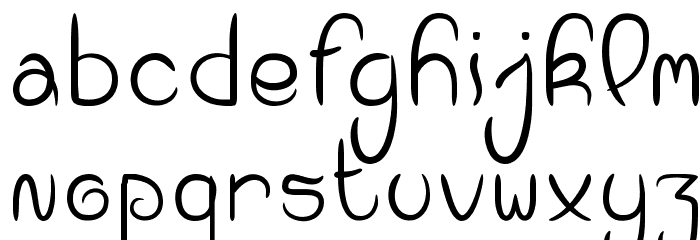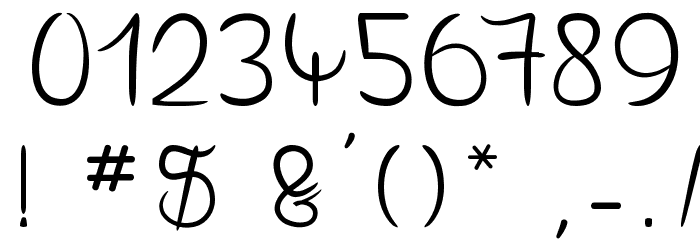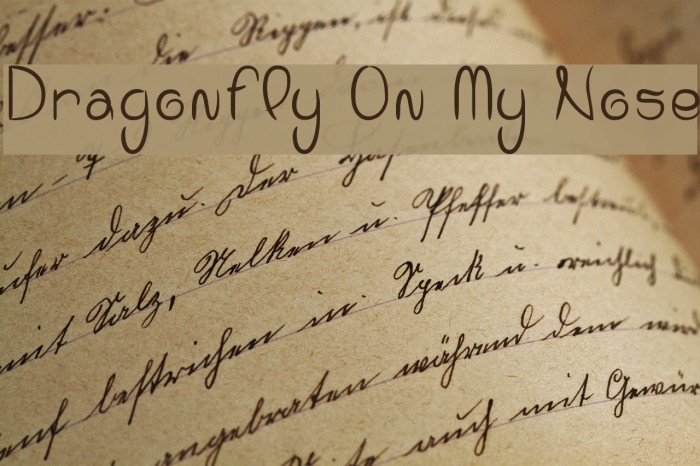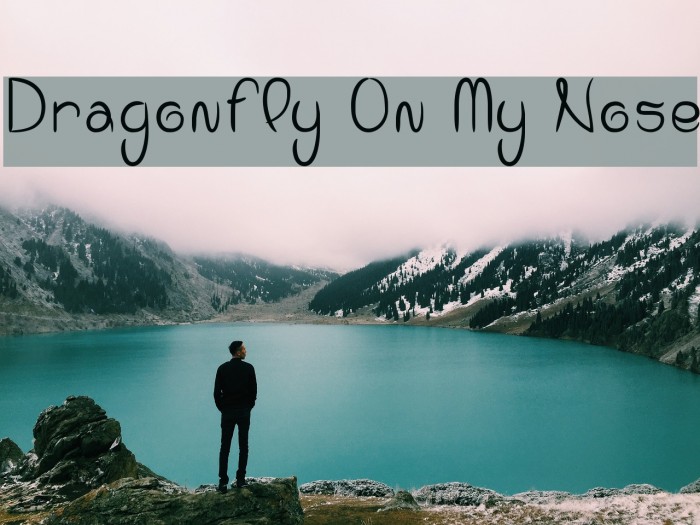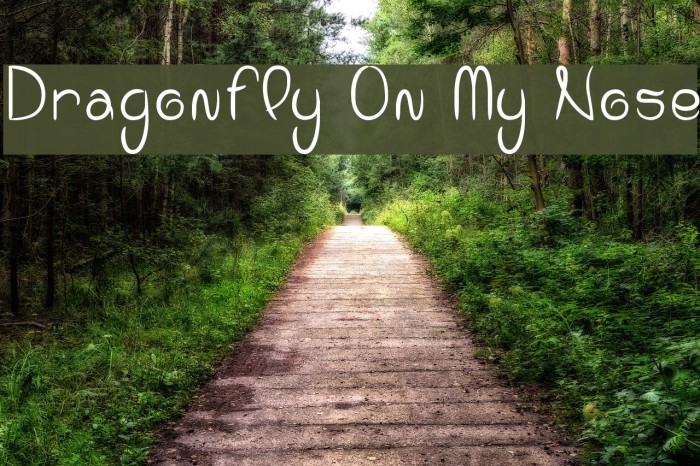
Dragonfly On My Nose Font
This playful and whimsical font features a handwritten style with a unique, quirky flair. The letters are characterized by their rounded, smooth curves and slightly uneven baseline, giving it a casual and friendly appearance. The uppercase letters maintain a consistent height, while the lowercase letters exhibit a charming irregularity. The numerals are distinct and easy to read, with a similar playful touch. Special characters are creatively designed, adding to the font's overall charm. This font is perfect for projects that require a personal, informal touch.
A playful, handwritten font with a whimsical and friendly style.
- Proposed Projects: Ideal for children's books, greeting cards, playful branding, and informal invitations.
- Overall Style: Whimsical
- Use Case: Headlines, Logos, Informal Text